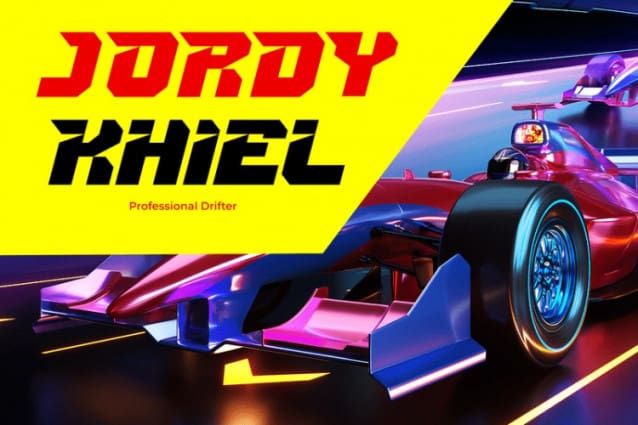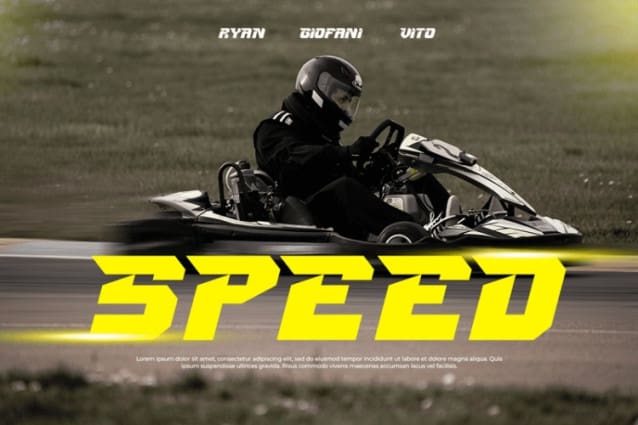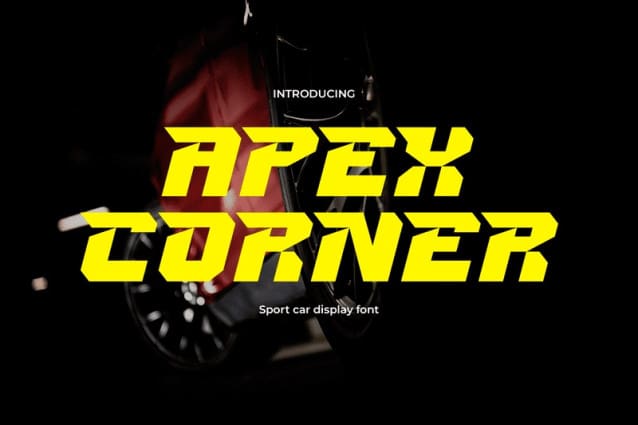
Apex Corner Font
Apex Corner Font – a dynamic display font designed to capture the speed and excitement of the racing world. This modern typeface is the perfect choice for any sports or automotive-themed project, whether a YouTube channel, movie title, or racing team logo.
With its bold and powerful lettering, Apex Corner is sure to make a statement and grab the attention of any audience. Its sleek and streamlined design is inspired by the aerodynamic curves of high-performance sports cars, making it the perfect font for any project that demands speed, power, and precision.
Whether you’re designing a poster for a racing car competition, creating a YouTube thumbnail for your gaming channel, or working on a film project that needs to capture the thrill of the race, Apex Corner has you covered. With its bold, eye-catching design and futuristic feel, this font is sure to make a statement and grab your audience’s attention.